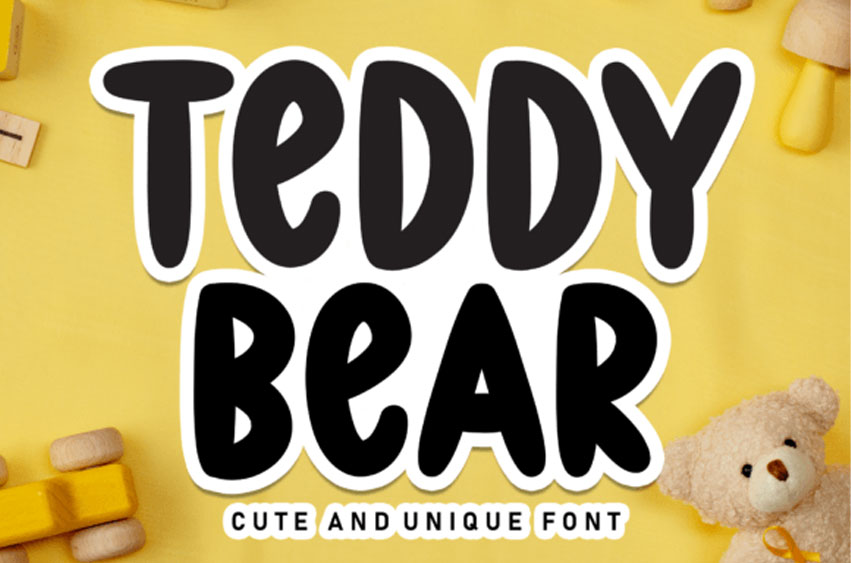
Teddy Bear Cute Font
Teddy Bear Cute Font is a sweet and friendly handwritten font.
Fresh and casual, this font is ideal for writing wedding invitations, cards, or any other design that might need a lovely touch.